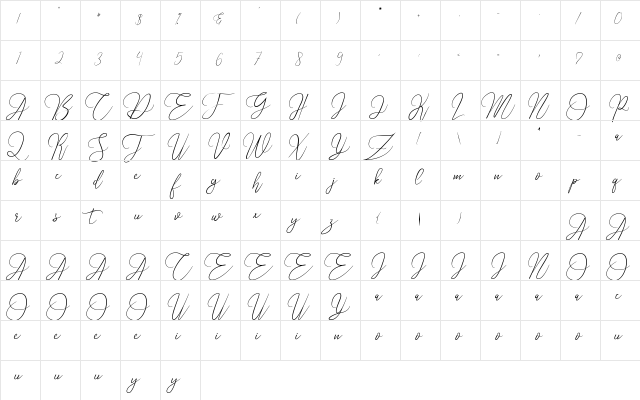
Alifiyah Regular
Design Context for Alifiyah Typeface
Alifiyah is a composed and adaptable typeface that performs quietly and consistently across a wide range of design contexts.